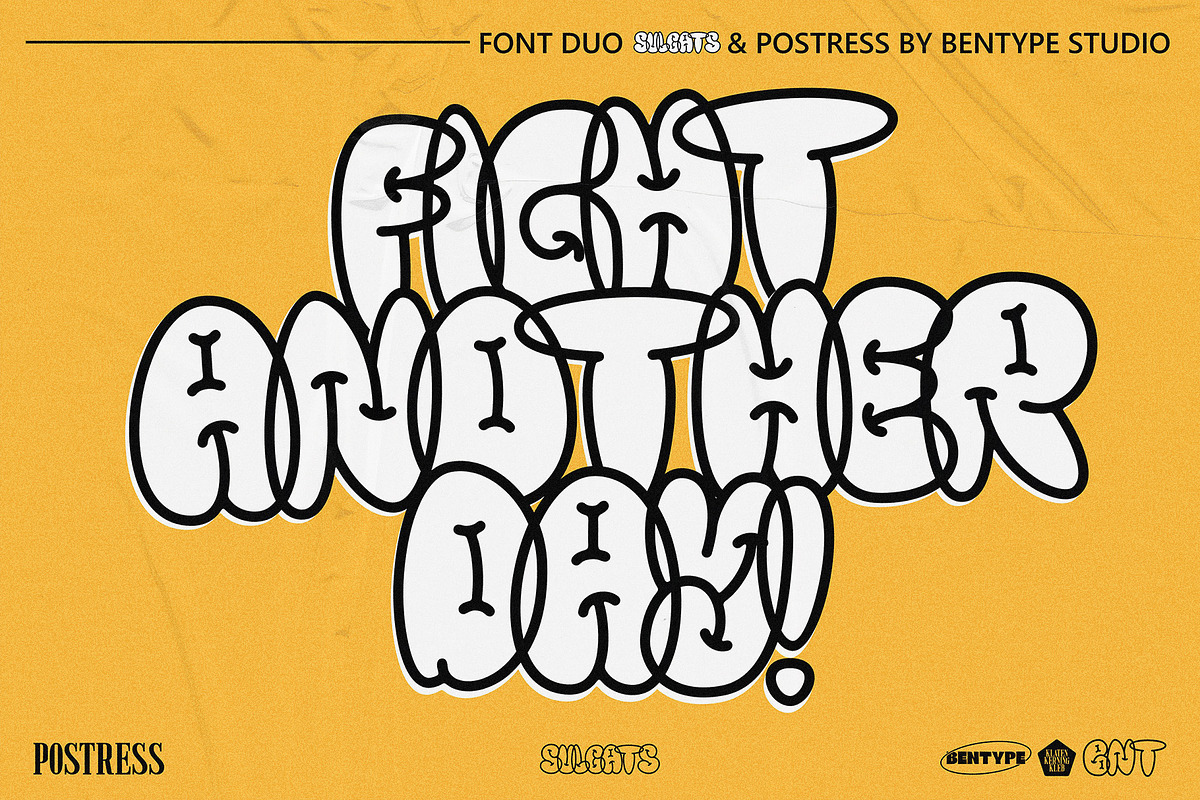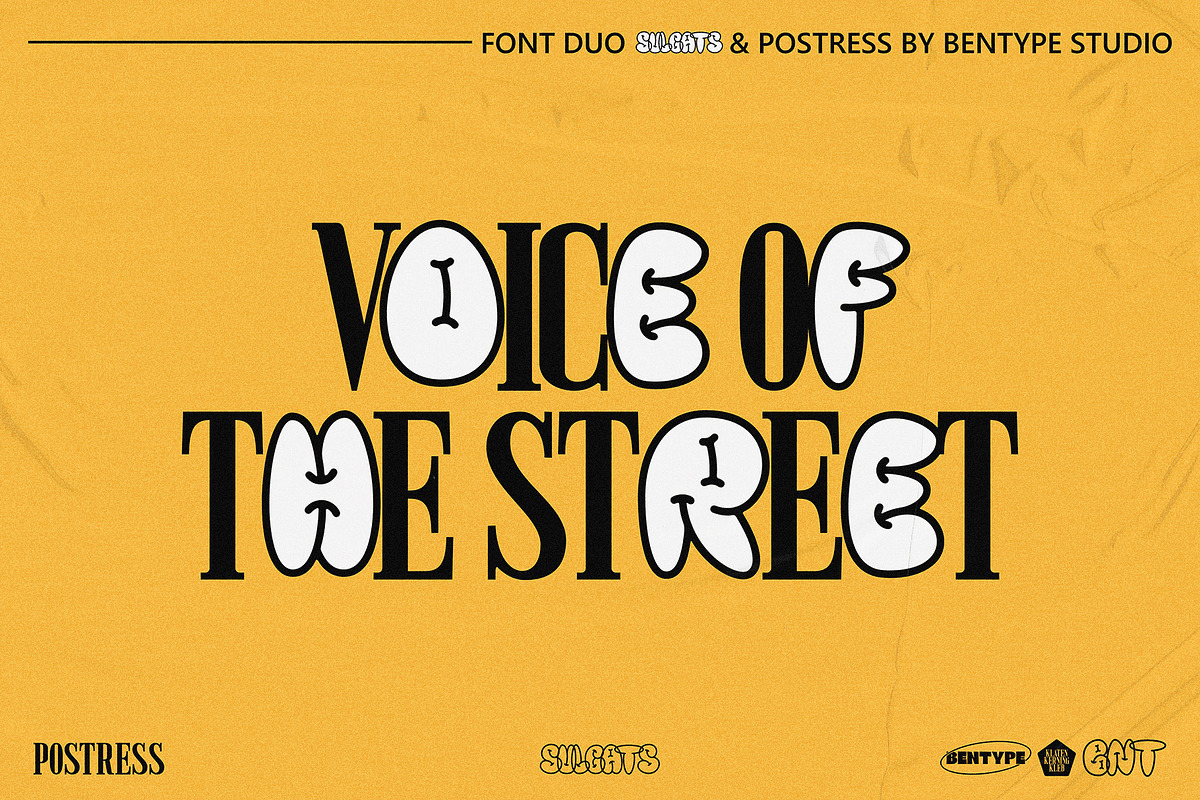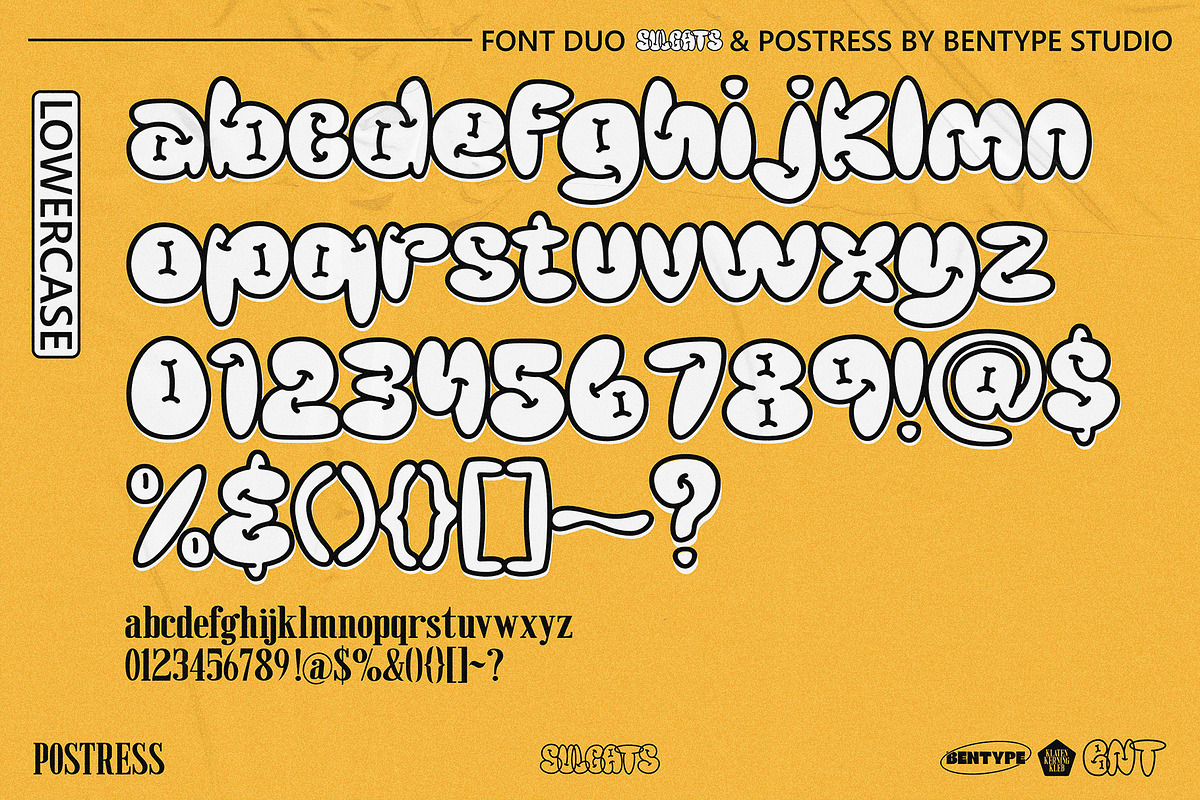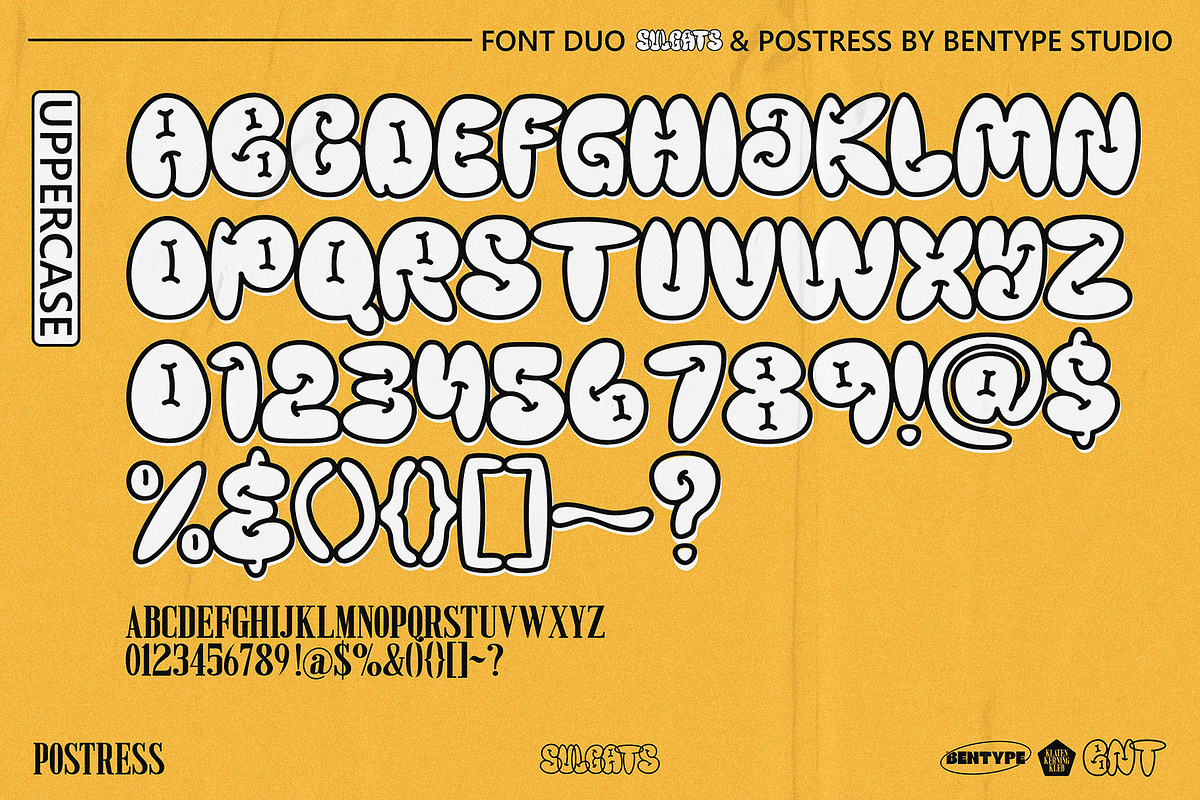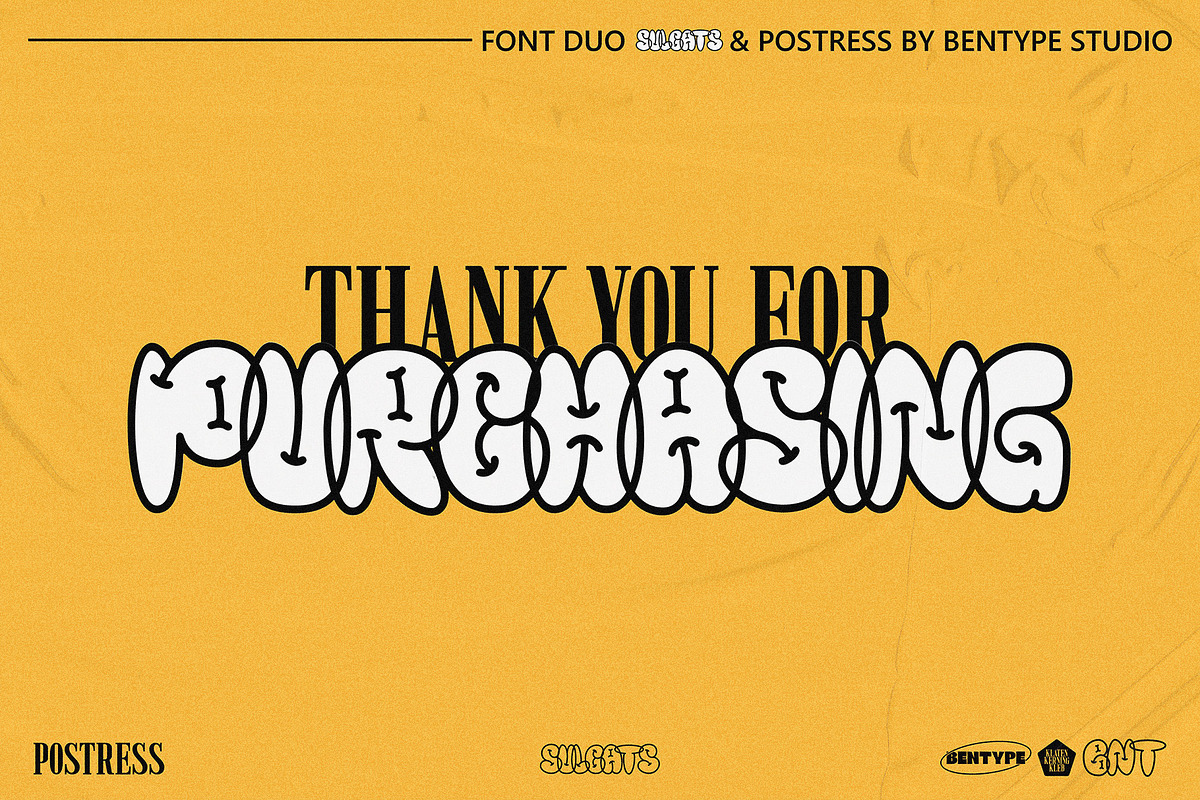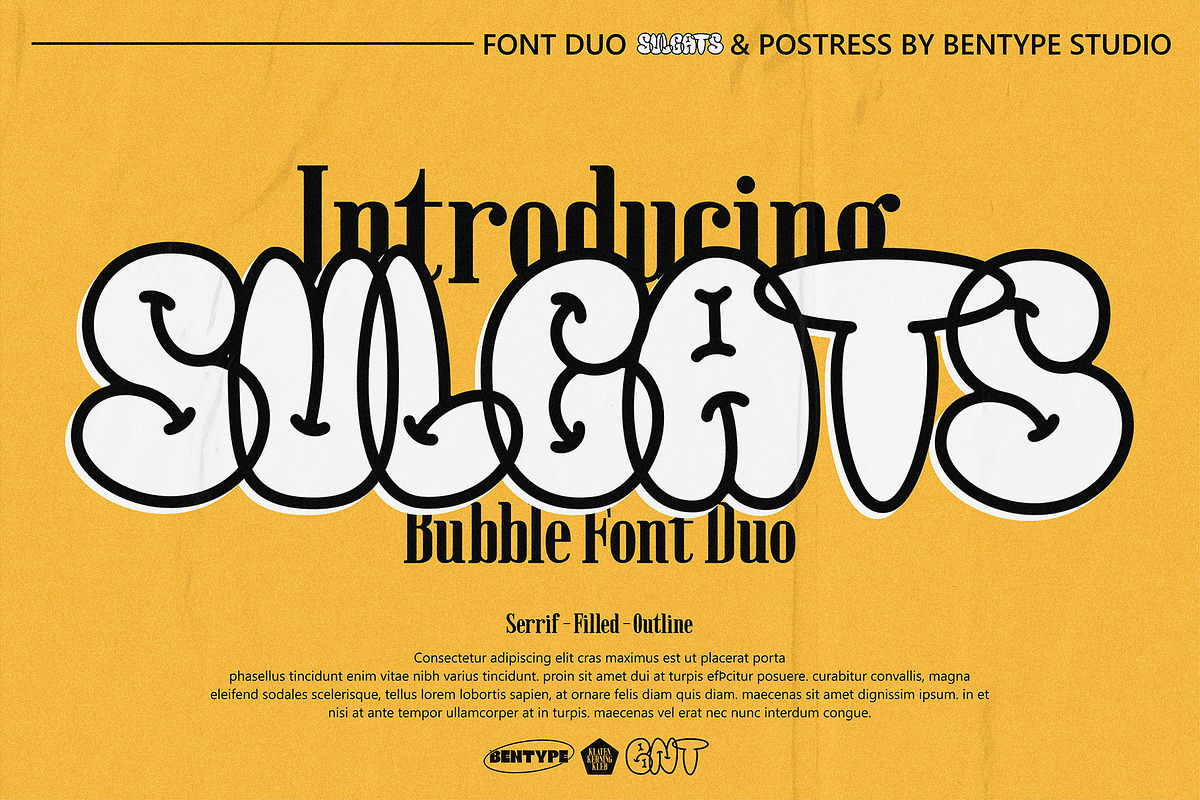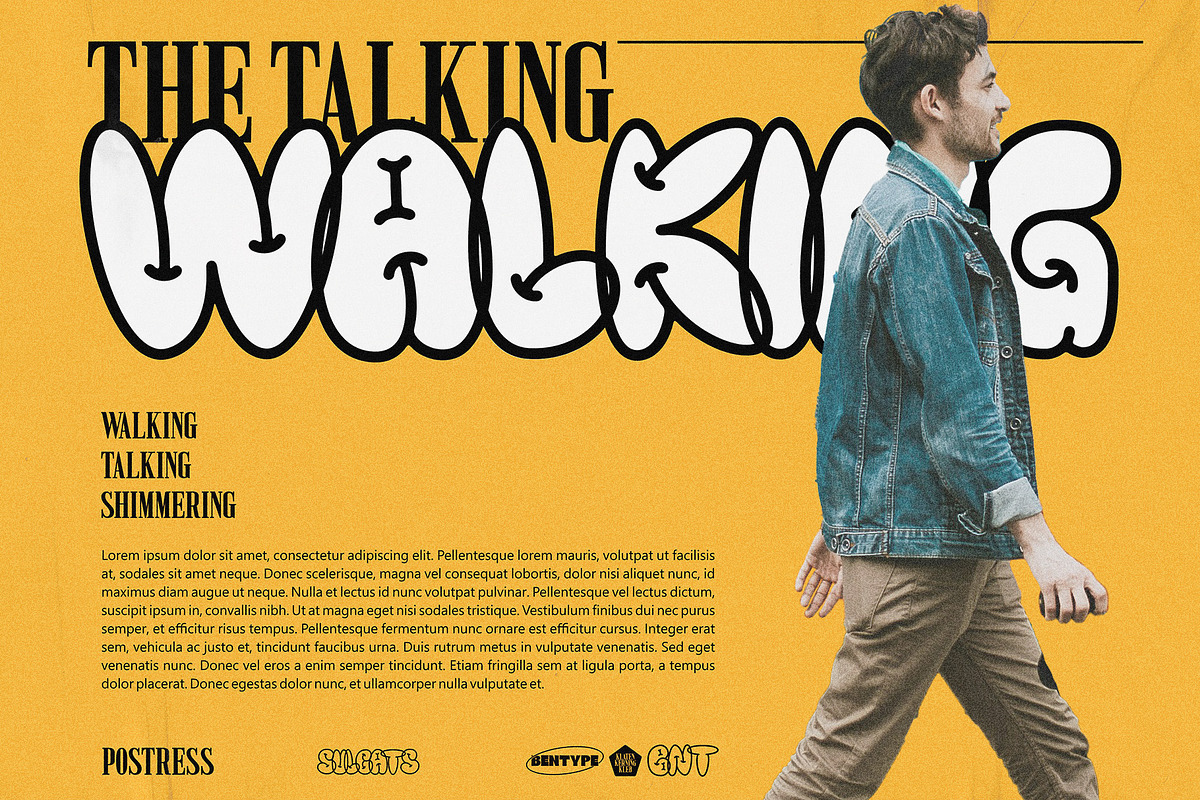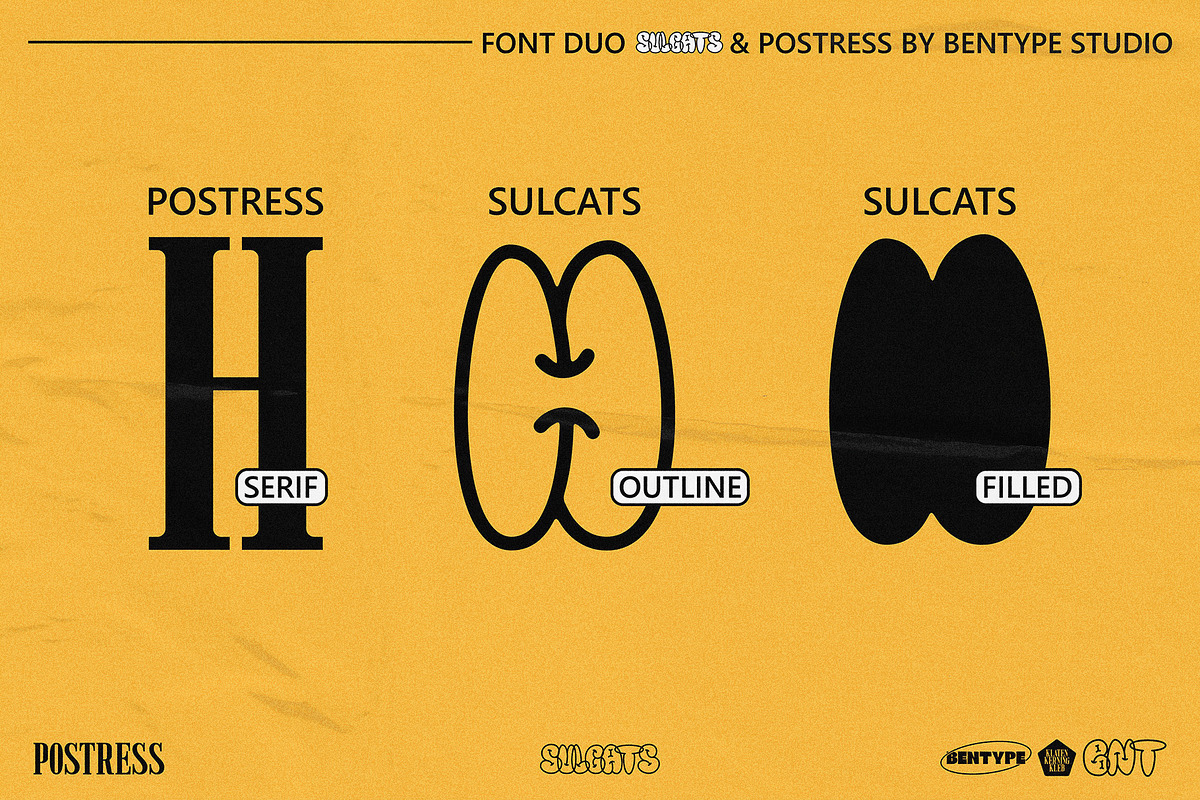
Sulcats - Bubble Font Duo
Sulcats - Bubble font refers to a style of typography characterized by its rounded, inflated, and balloon-like appearance. This type of font often conveys a playful, whimsical, and informal vibe, making it popular for designs aimed at grafitty or creative projects.Bubble fonts come in various styles and can range from simple, minimalistic designs to more elaborate and decorative versions, often incorporating elements like shadows, highlights, or 3D effects to enhance their bubbly appearance.